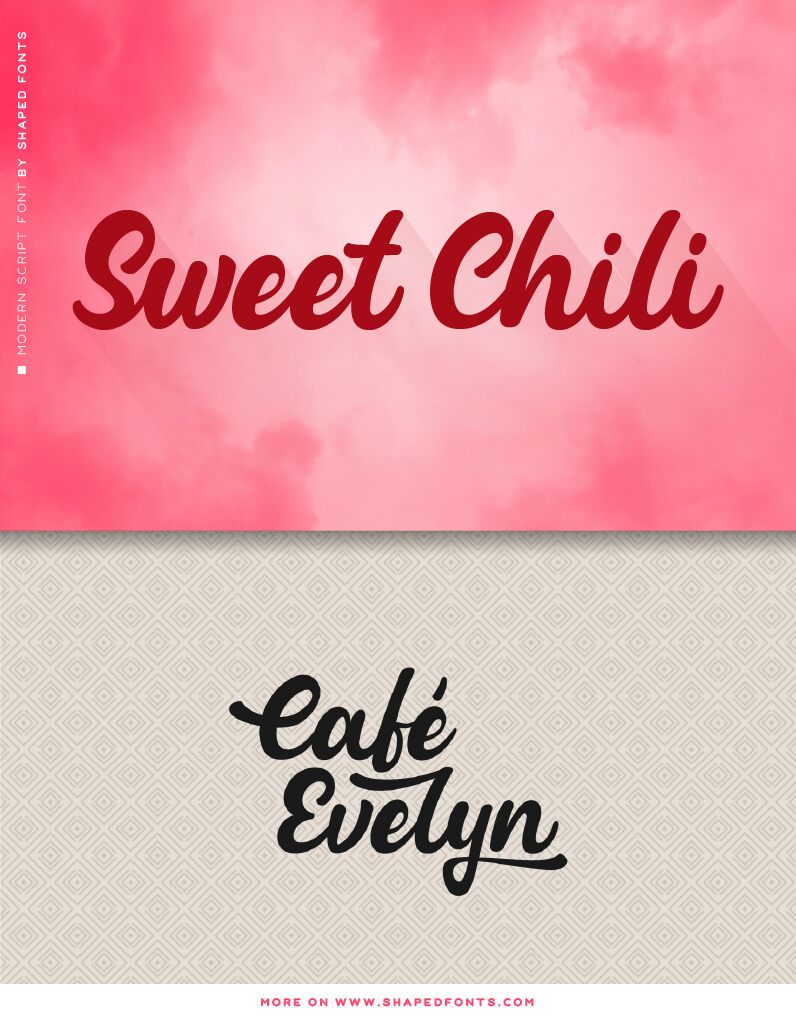
Spice up your font gallery with our newest script font! Sweet Chili has a modern, clean look
and a wide range of features to complete your next design project.
Sweet Chili
Christoph Dörre